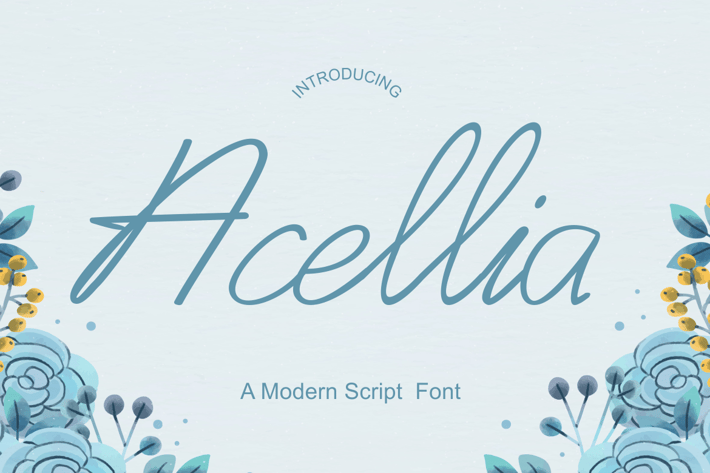
Acellia - Modern Script Font
Proudly present our new product Acellia - Modern Script Font
is a modern and authentic font. Perfect for professional needs and product branding, this font is suitable for any branding project such as quotes, logos, blog headers, posters, ribbons, letters, invitations, stationery, etc... Designed to be versatile and flexible that can be used on a variety of projects and media. extraordinary in a variety of contexts.